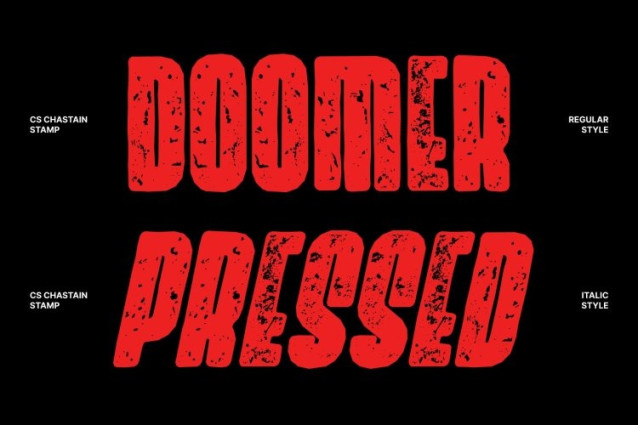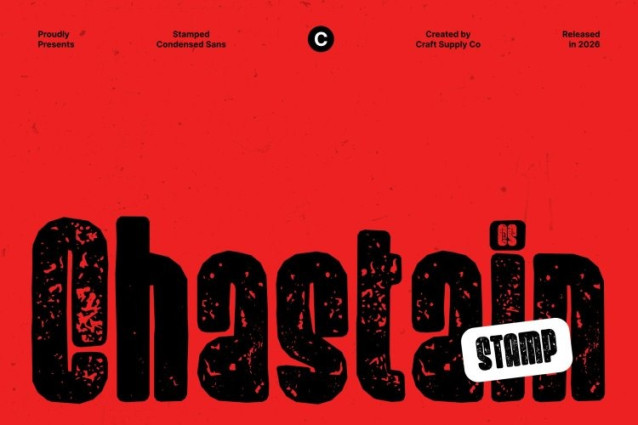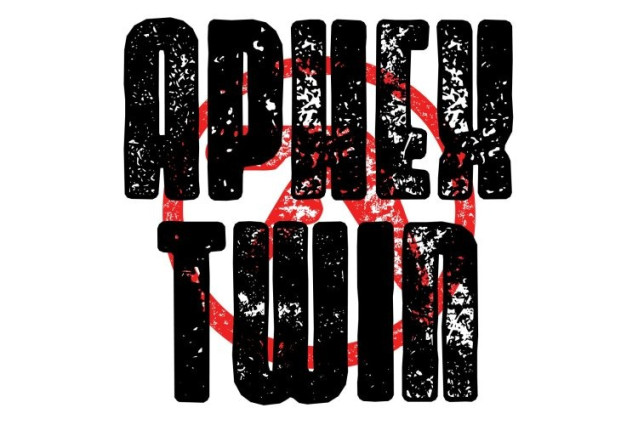
CS Chastain Stamp Font
CS Chastain Stamp Font is a modern sans serif font defined by its bold, condensed structure, designed to deliver strong visual impact while efficiently using space. Its narrow yet sturdy letterforms create a confident and commanding presence, making it especially effective for headlines, titles, and layouts that require clarity within compact dimensions. The added stamp effect introduces subtle vintage texture, giving the font a handcrafted, printed feel.
Clean Modern Geometry with Textured Depth
Built on a clean and contemporary design foundation, this font features sleek geometry and balanced proportions that create a sharp, organized visual rhythm. The stamp treatment adds slightly distressed edges and ink-like variations, softening the rigid structure with an organic, tactile quality reminiscent of traditional printing techniques.
Efficient and Professional Typography
This font maintains excellent readability despite its condensed form, making it highly practical for professional communication. Its compact structure allows designers to present information clearly and efficiently while still maintaining a strong stylistic identity.
Ideal for Branding, Editorial, and Modern Media
Perfect for branding, editorial layouts, packaging, posters, and digital media, this font adapts seamlessly across various design environments. The combination of modern condensed typography and vintage stamp texture creates a distinctive voice one that feels bold, professional, and visually memorable.